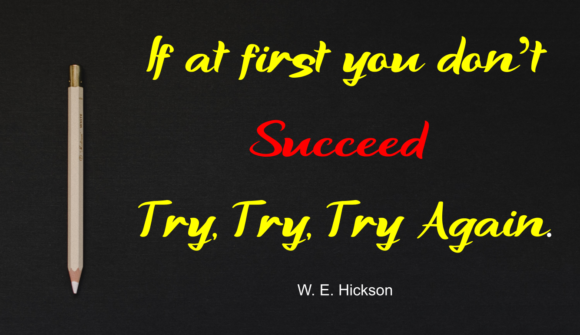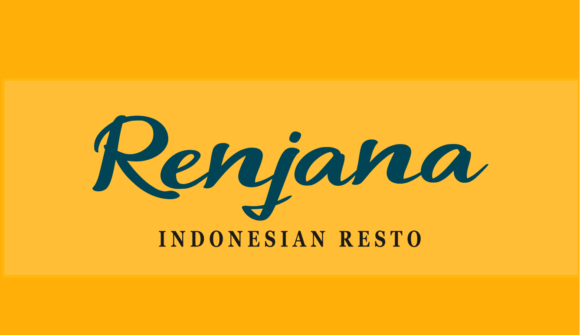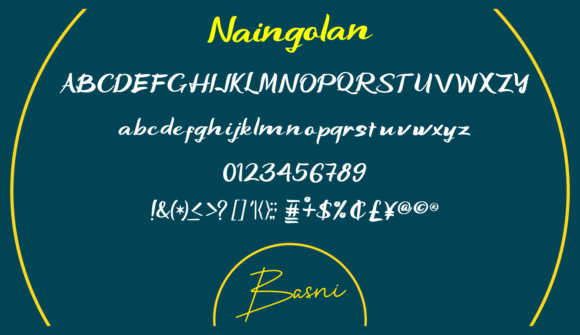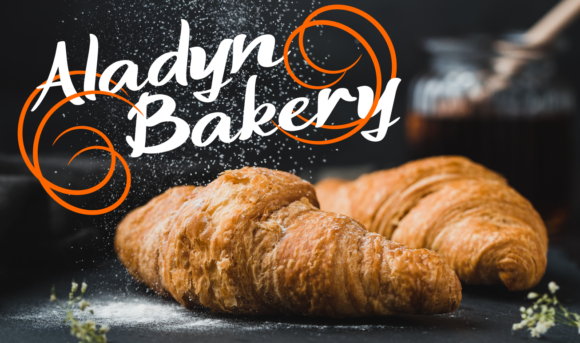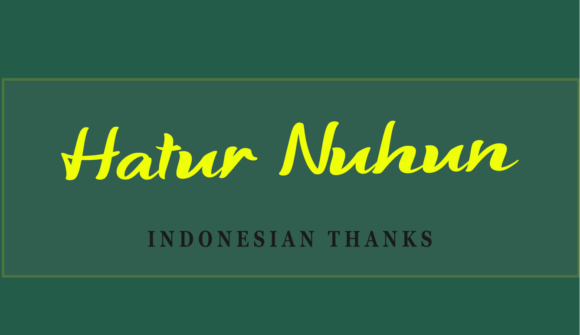
Introduction to Naingolan Font
As a designer, you know that finding the perfect font can make all the difference in bringing your creative vision to life. Remember that one moment when you finally stumbled upon the perfect script font that elevated your entire project? For me, that moment was when I discovered the stunning Naingolan Font. Its smooth curves and elegant feel instantly added a touch of sophistication to my design, and I knew I had to share it with the world.
Whether you’re working on a high-end fashion branding project or a chic editorial design, the Naingolan Font is a valuable addition to any designer’s toolkit. With its high-quality design and transparent background, this font is perfect for designers who crave a unique and creative resource. And the best part? It’s available for a free download, making it an accessible design resource for designers of all levels.
Key Features of Naingolan Font
- High-quality design resource ideal for creative projects with a transparent background, allowing for seamless integration with various design elements.
- Unique, modern font style with a distinctive aesthetic, perfect for adding a touch of elegance to any design project.
- Available in a single size, making it versatile for use in various contexts, from small text to large headings.
- Designed with high resolution in mind, ensuring crisp and clear display on high-resolution screens and prints.
- Perfect for designers and artists working on creative projects, such as logos, branding materials, and editorial designs.
Honest Review: Naingolan Font
I recently had the chance to work with the Naingolan Font in a creative project, and I must say, it was a great experience. The font has a unique and modern design that added a touch of elegance to my design.
One of the things that works well with the Naingolan Font is its versatility. It can be used in a variety of design contexts, from digital to print, and it looks great with a transparent background. The font is also available for free download, making it a valuable resource for designers.
Here are some of the key features that make the Naingolan Font stand out:
- High quality design that is perfect for creative projects
- Unique and modern aesthetic that adds a touch of elegance to any design
- Can be used in a variety of design contexts, including digital and print
However, there are a few limitations to the Naingolan Font. It’s not suitable for all types of projects, and some designers may find the font too bold or overwhelming. ⚠️
Overall, I was impressed with the Naingolan Font and would recommend it to designers who are looking for a high-quality, free design resource. ✨
Naingolan Font is suitable for a variety of design projects, including logos, branding materials, and marketing materials. Its high quality and versatility make it a great design resource for your creative project. You can also use it in your digital designs, such as website headers and footers.
Tips for Getting the Most Out of Naingolan Font
To get the most out of Naingolan Font, experiment with different font sizes and styles to create visually appealing designs. You can also pair it with other fonts to create a unique and creative look. Additionally, use Naingolan Font’s transparent background to create designs with a clean and modern feel.
Q: What is the recommended resolution for using the Naingolan Font in high-quality design projects?
For optimal results, we recommend using the Naingolan Font at a resolution of 300 DPI or higher, depending on the specific design application and project requirements. This will ensure that the font displays clearly and crisply, even when scaled up or used in large formats.